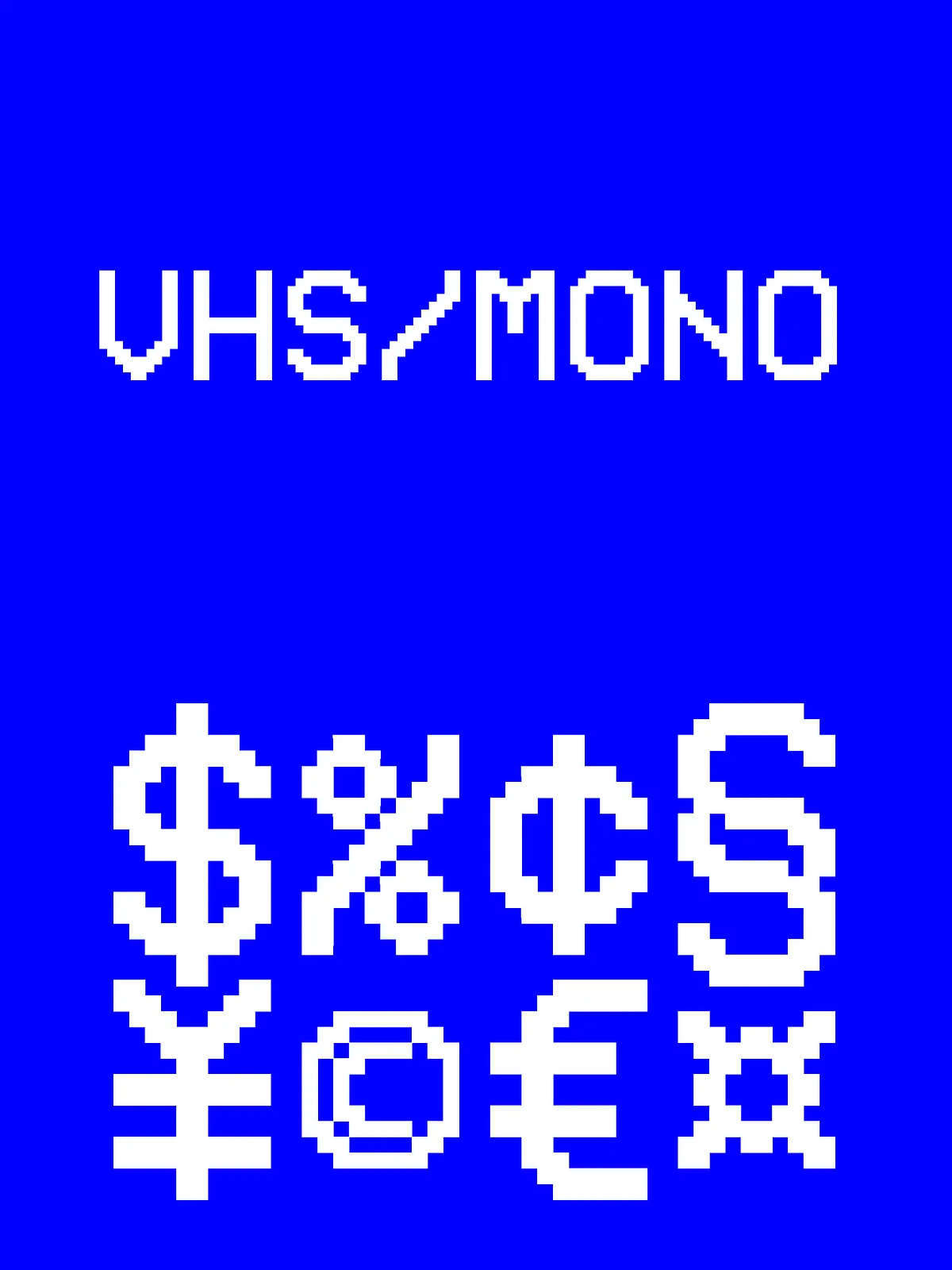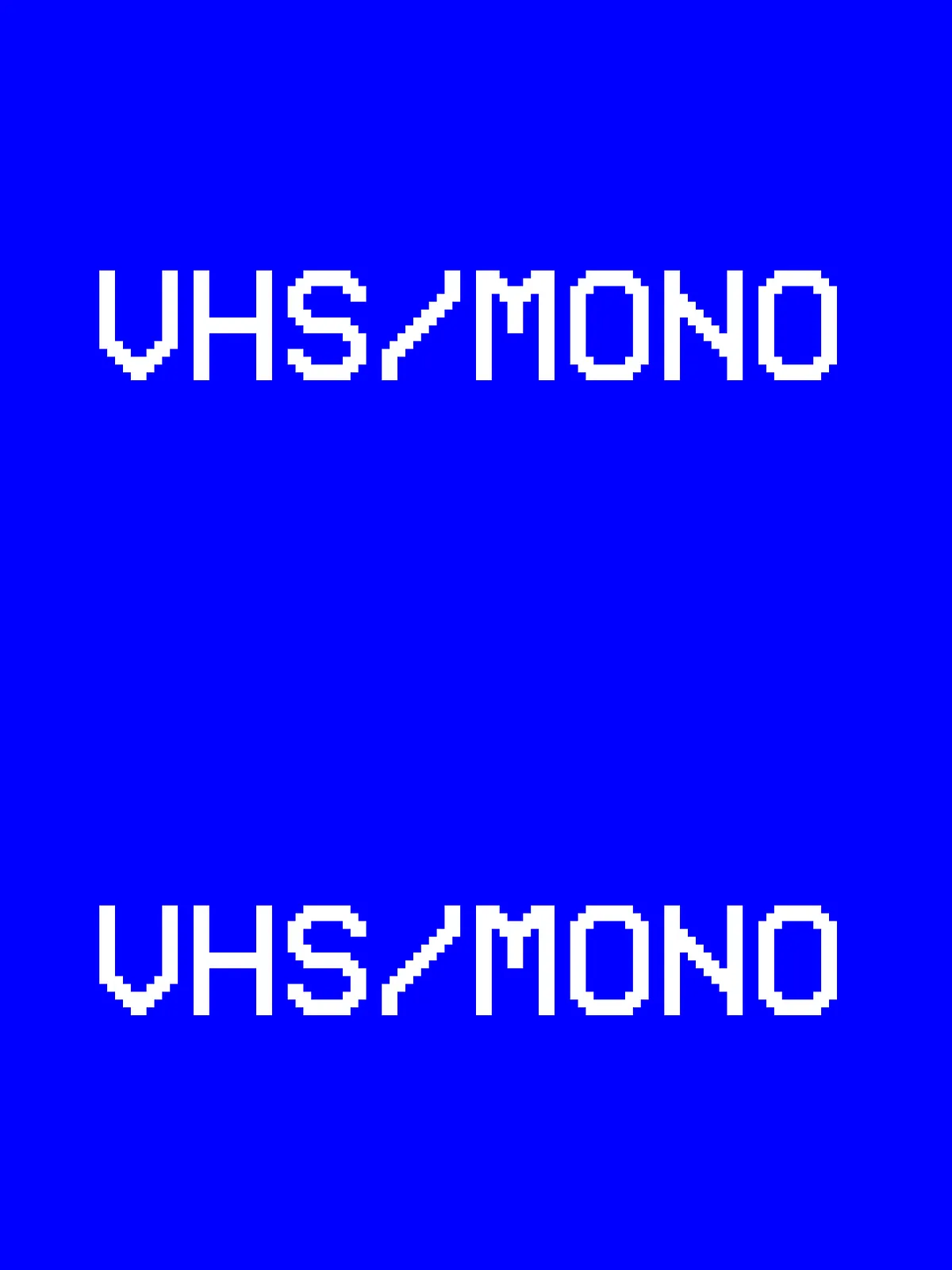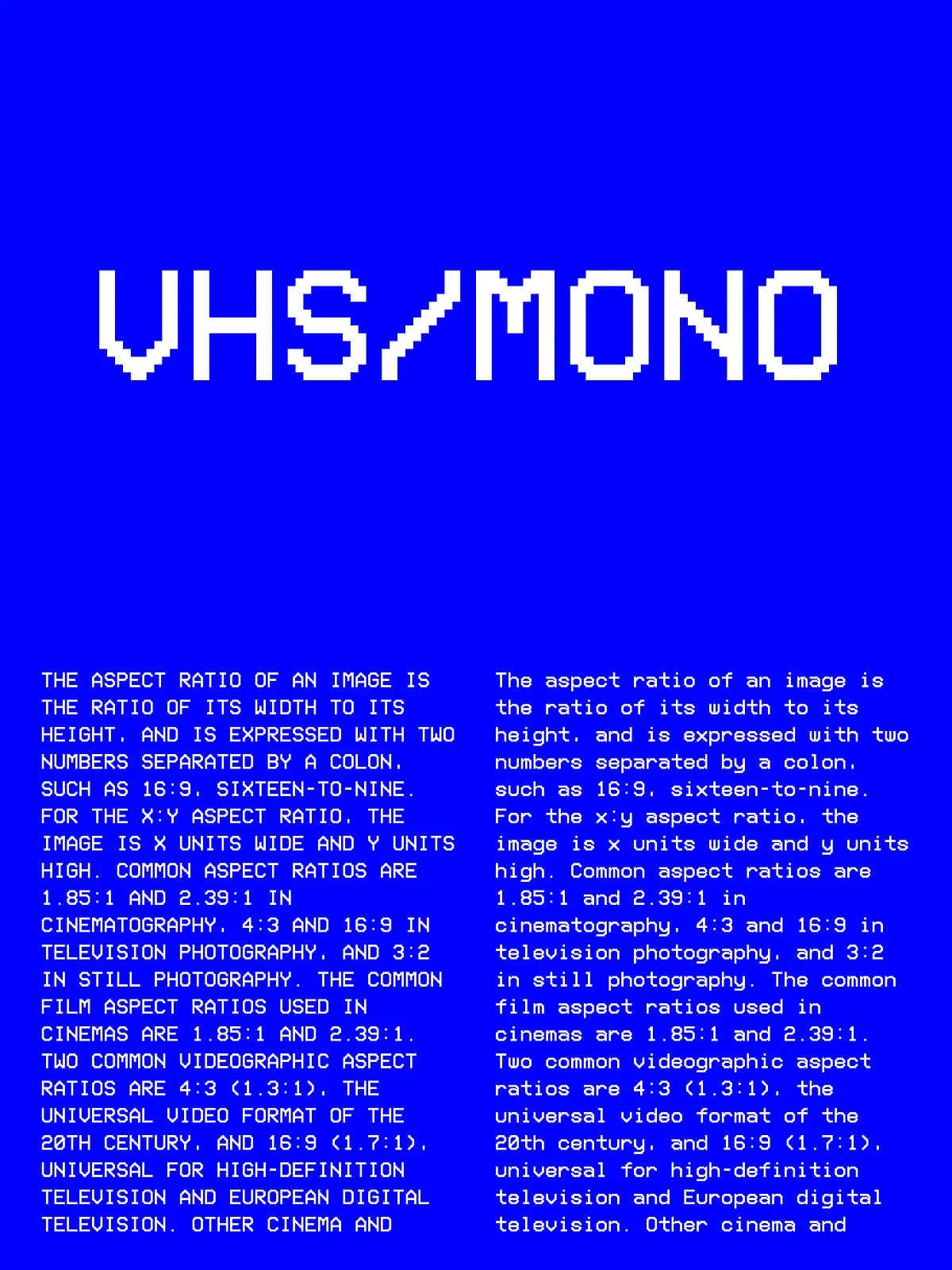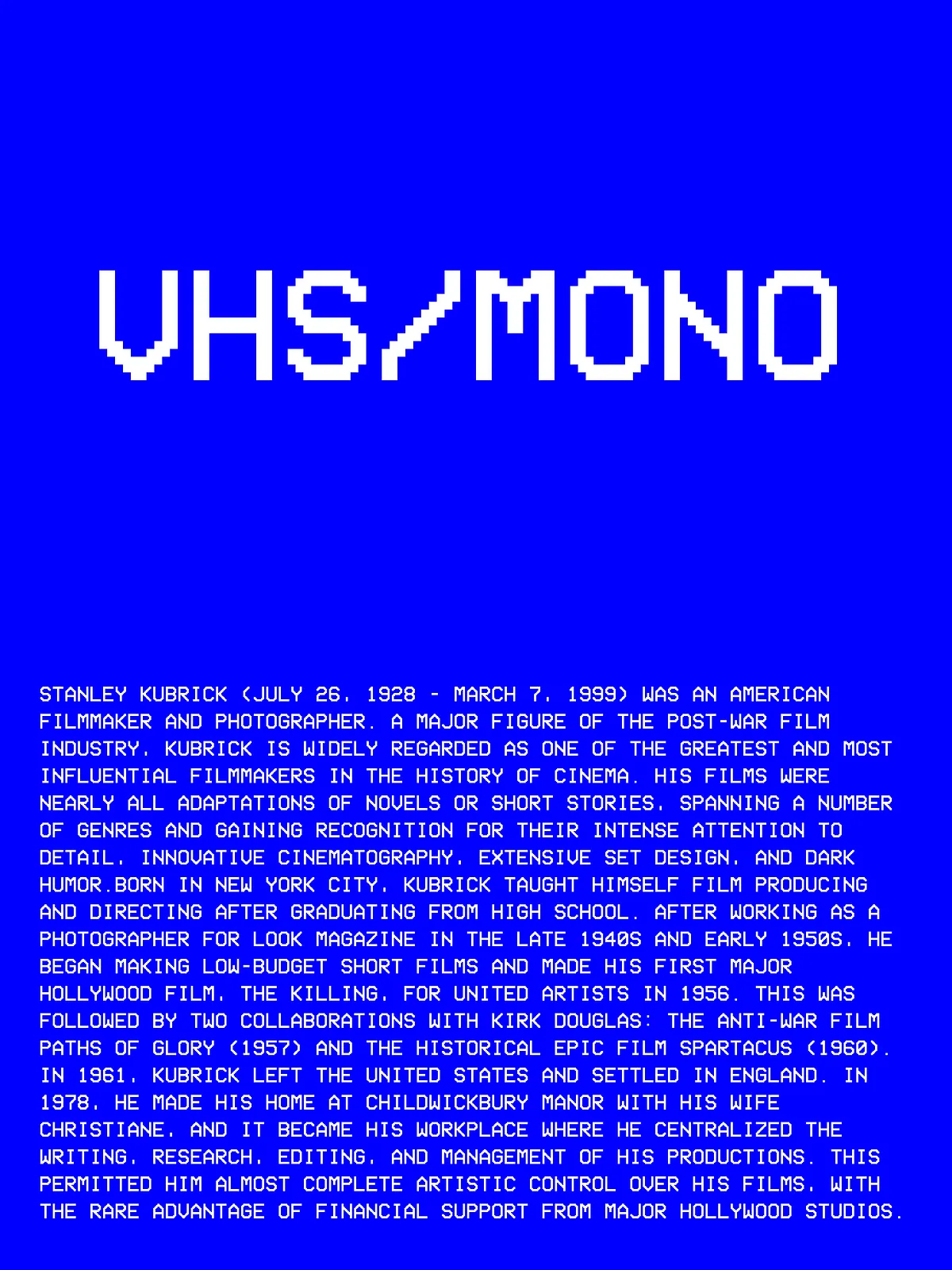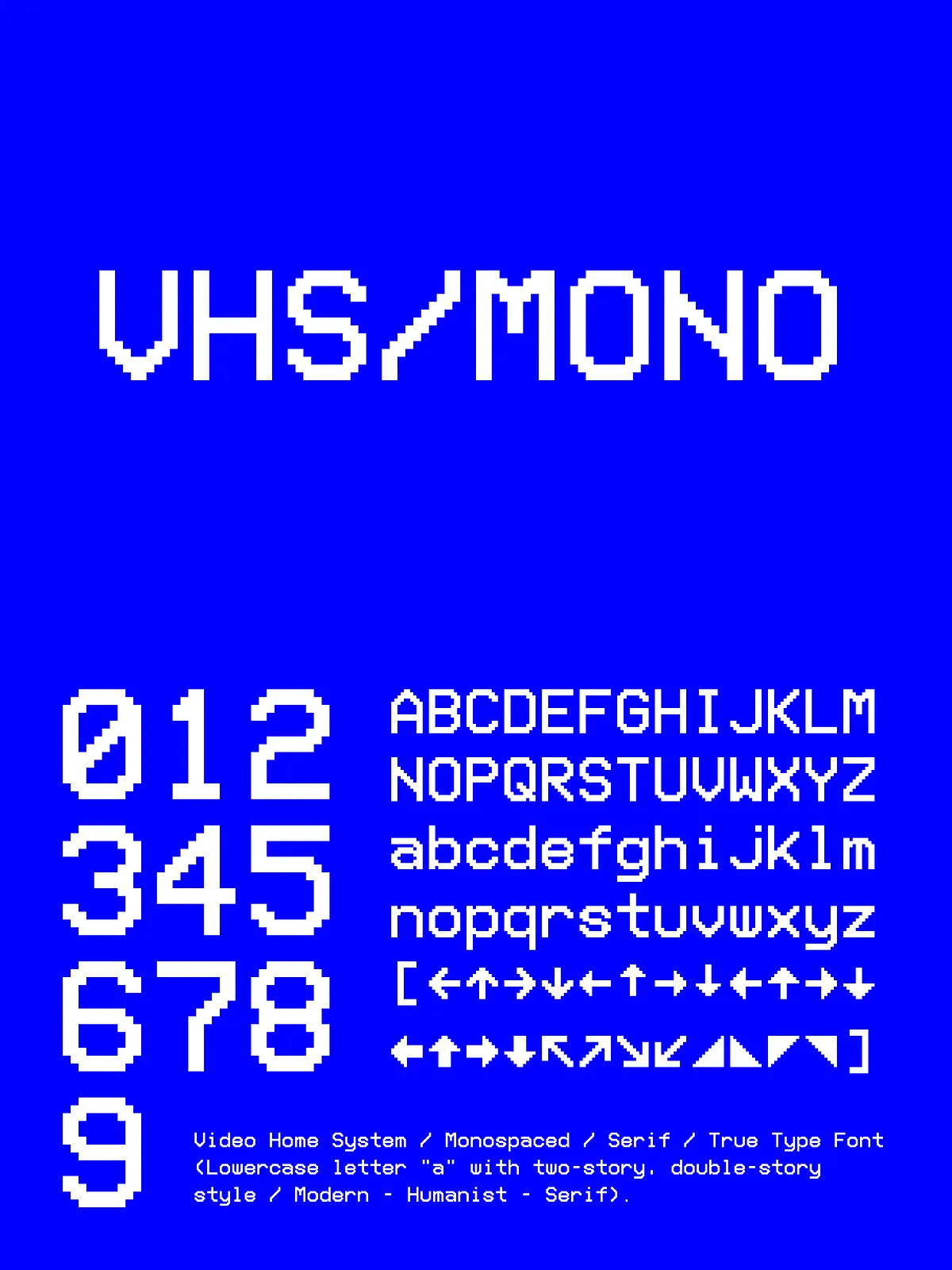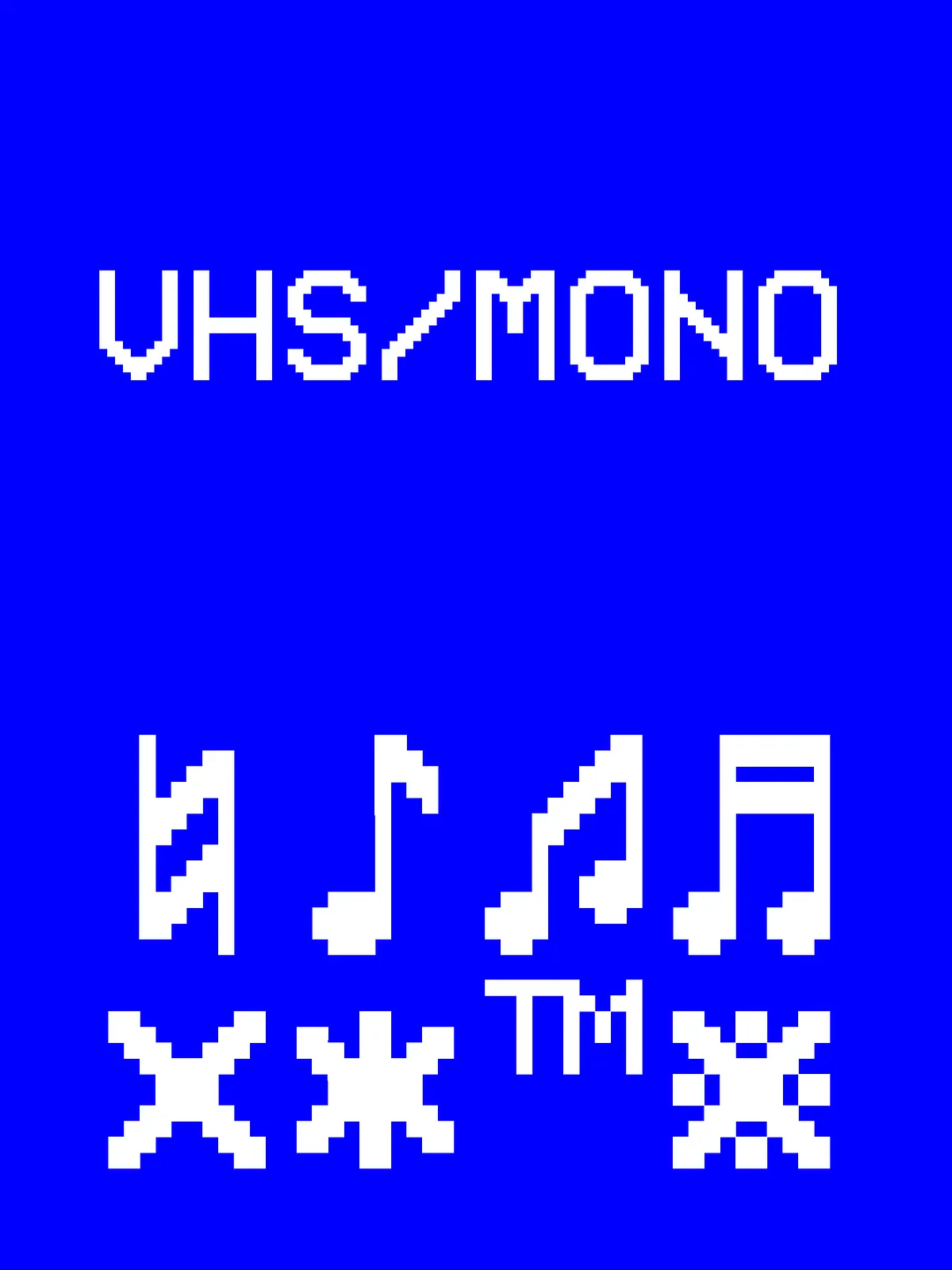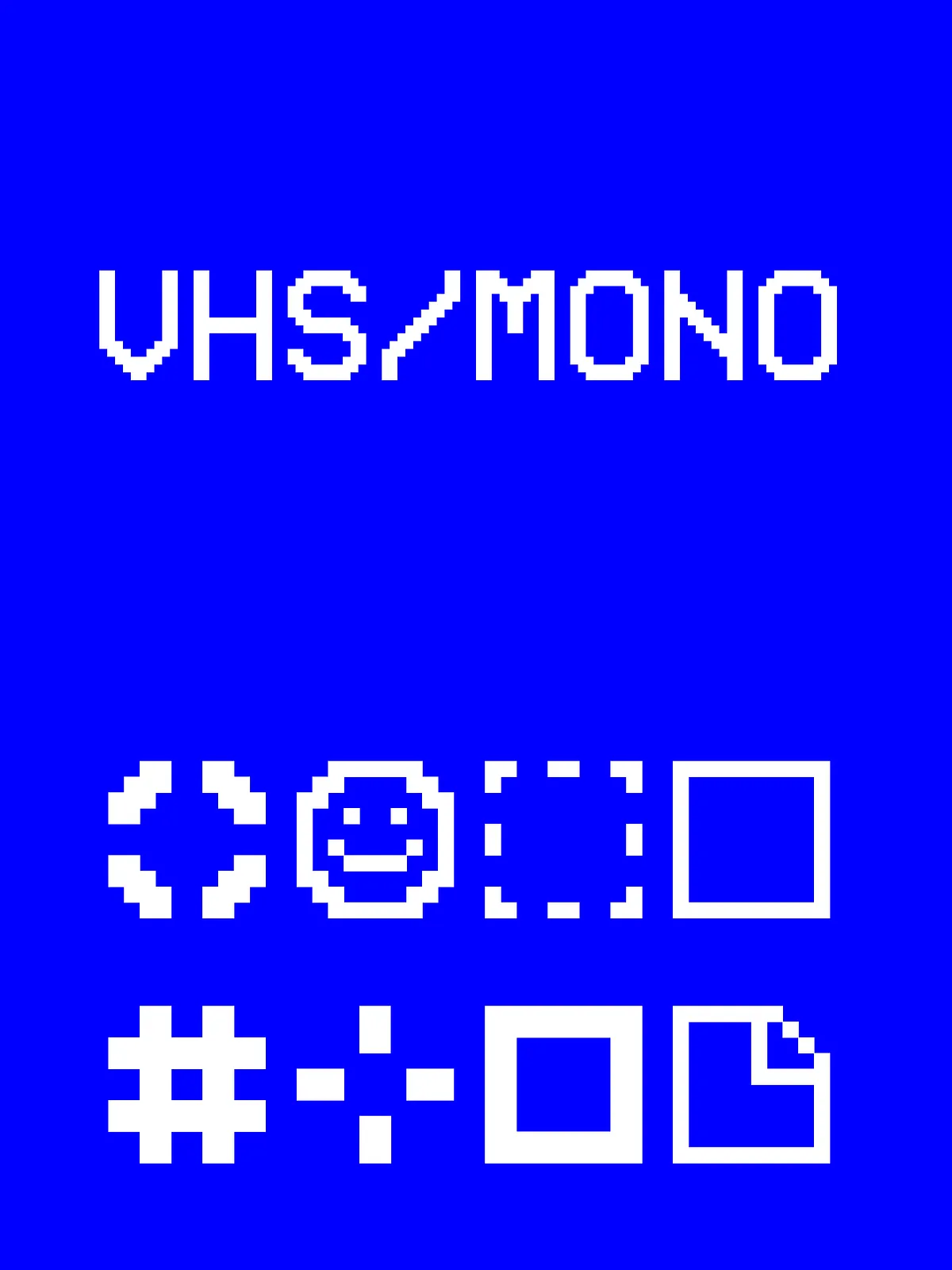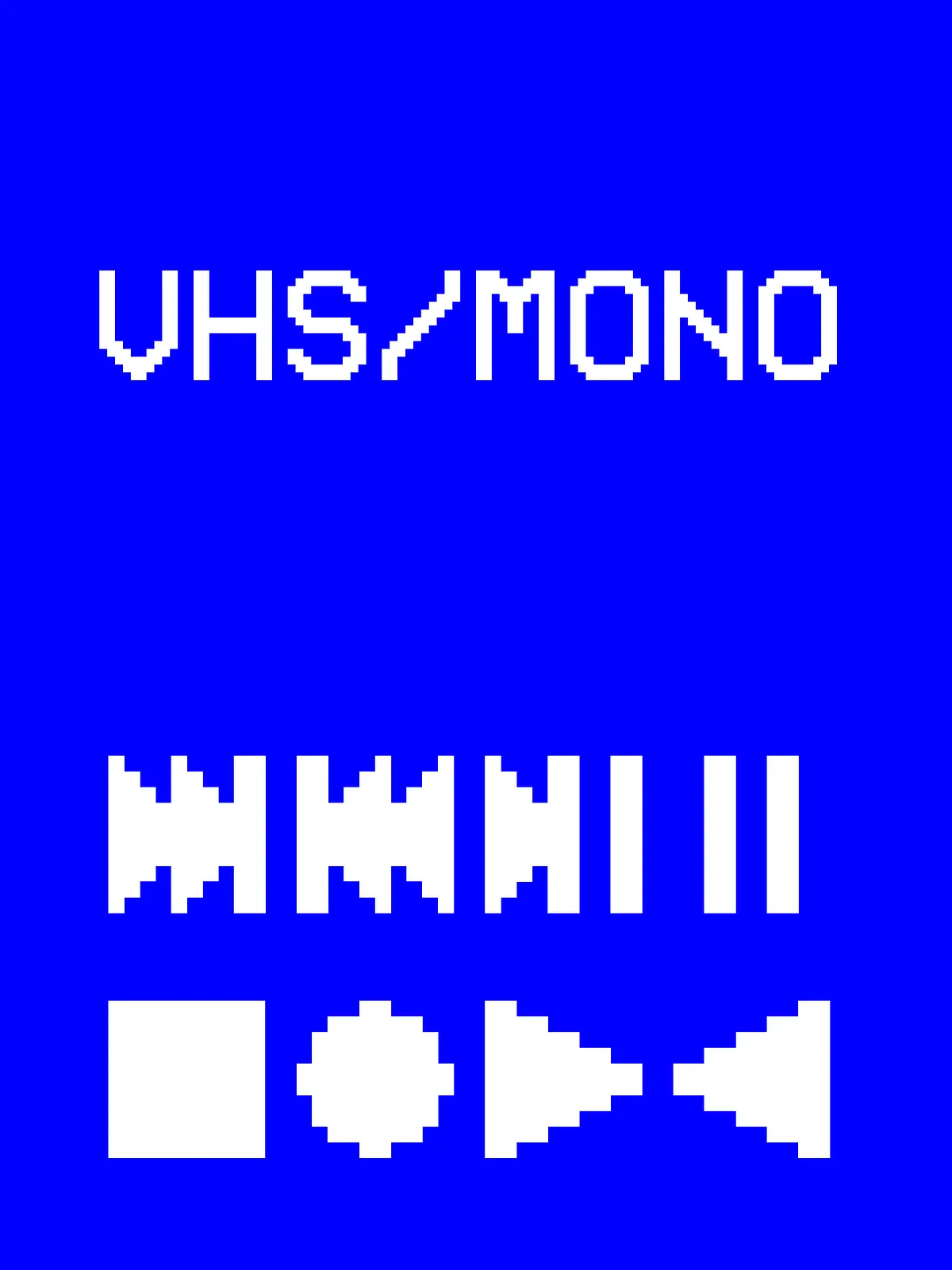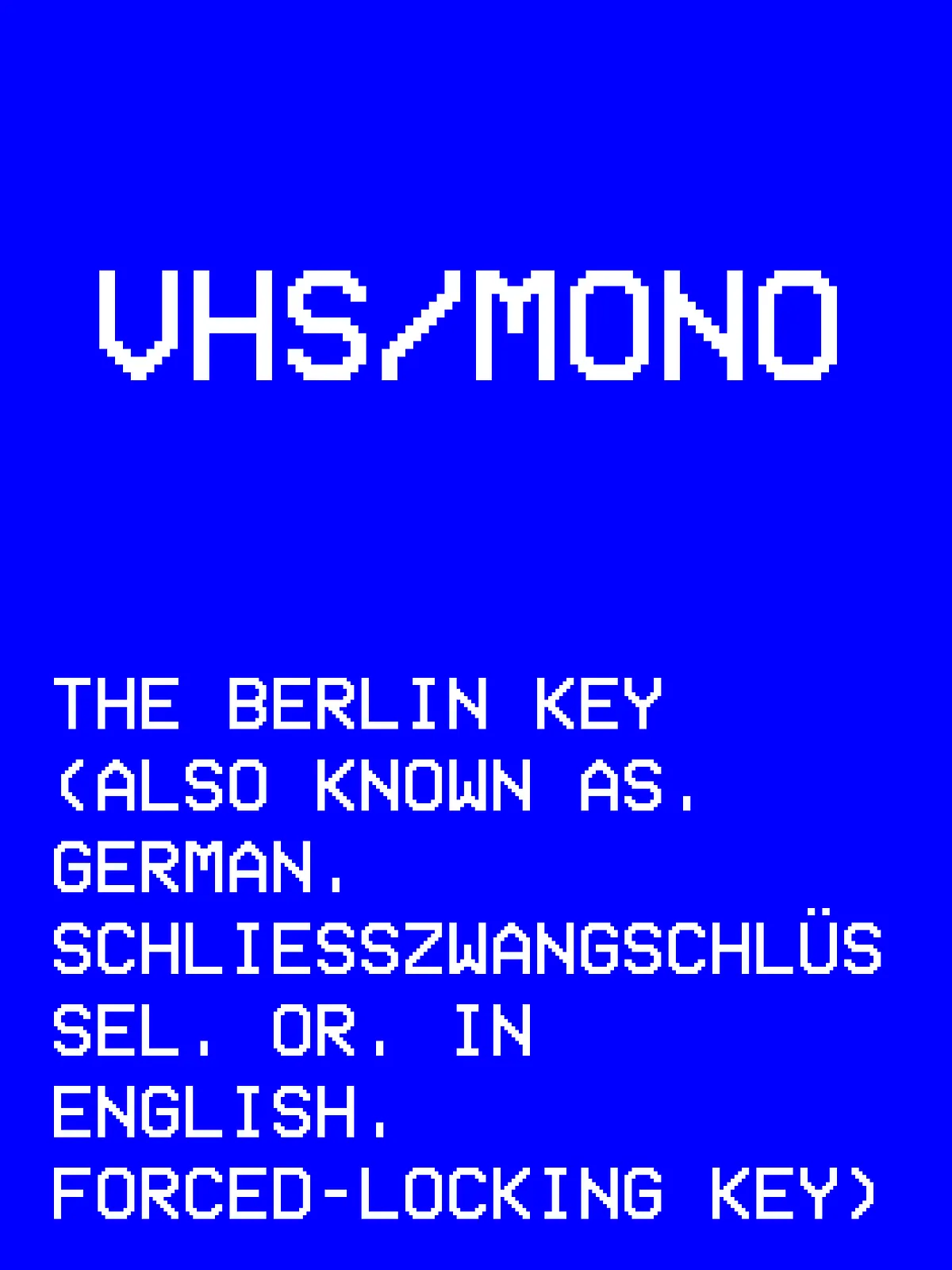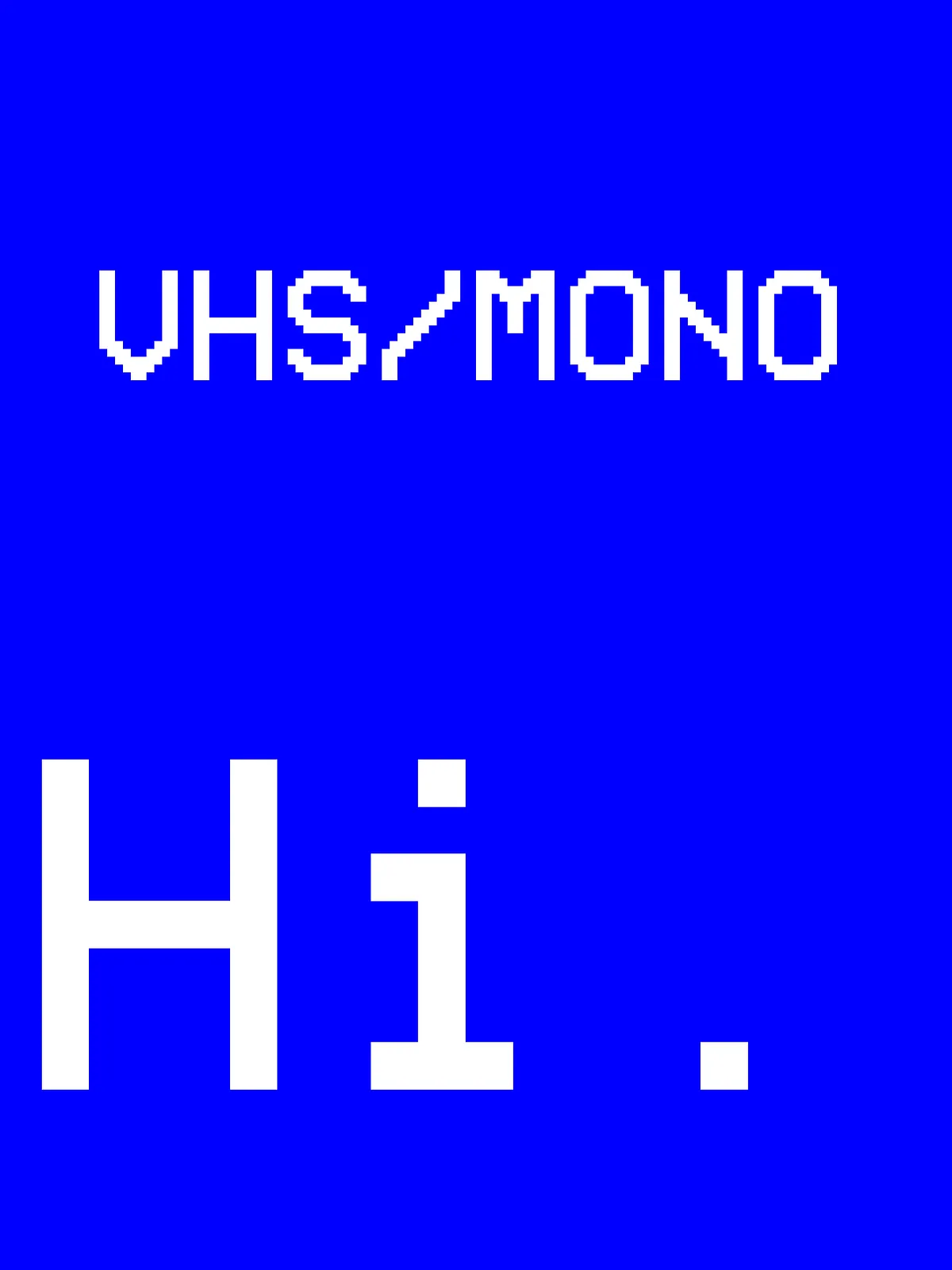
Recreate the raw authenticity of 1980s and 1990s home video aesthetics with VHS Mono—a meticulously crafted pixel perfect bitmap font series built for design with soul and precision. Engineered with nostalgia in mind but built for today’s workflows, this font family blends the charm of vintage video systems with the crisp clarity demanded by modern digital displays.
Explore the Full VHS Mono Family: 6 Distinct Variants
1. VHS Mono — Modern Humanist Sans (Lowercase ‘a’: Two-Story)
The foundational style of the series, VHS Mono features clean, humanist sans-serif forms with a two-story lowercase ‘a’ and a balanced, slightly expanded counter space. Every character is rendered at exactly 26px with integer-based leading for perfect pixel alignment. Designed for readability and retro flair, this variant shines in UI elements, terminal interfaces, and retro game titles.
2. VHS Mono Serif — Modern Humanist Serif (Lowercase ‘a’: Two-Story)
For projects that need a bit more character and gravitas, VHS Mono Serif brings subtle serif details to the pixel canvas. The gentle stroke terminals and restrained serif flourishes add elegance without sacrificing the vintage aesthetic. Perfect for retro branding, film titles, or vintage-style documentation.
3. VHS Mono 2 — Geometric Sans (Lowercase ‘a’: One-Story)
Take a more abstract, futuristic turn with VHS Mono 2. Featuring a one-story lowercase ‘a’ and circular counter spaces, this geometric variant leans into minimalism and abstraction. With cleaner, angular shapes and a synthetic feel, it’s ideal for sci-fi themes, abstract animations, and digital art with a cybernetic edge.
4. VHS Mono 2 Serif — Geometric Serif (Lowercase ‘a’: One-Story)
When geometric form meets traditional refinement, VHS Mono 2 Serif emerges as a bridge between digital abstraction and typographic tradition. Circular counters, clean serifs, and consistent stroke weights create a visually harmonious font that retains its retro identity while feeling more sophisticated. Use it in retro-futuristic posters, game HUDs, or themed presentations.
5. VHS Mono Caps — All Caps, Monospaced
For maximum impact and uniformity, VHS Mono Caps delivers all uppercase letters with perfect pixel alignment. Ideal for headlines, navigation bars, code comments, and stylized slogans where visual dominance matters. Its strict monospaced design ensures alignment across multi-line text with zero visual wobble.
6. VHS Mono Serif Caps — All Caps, Serif
Bring the same retro grandeur to uppercase text with VHS Mono Serif Caps. The combination of serif details and monospaced precision creates a bold, authoritative presence. Use it sparingly for maximum effect—perfect for vintage-inspired posters, game intro screens, or iconic product names.
Technical Precision for Pixel Perfection
Every font in the VHS Mono series is created with care and consistency:
- Fixed Size: 26px — Ensures consistent scaling and pixel accuracy across platforms.
- Integer-Based Leading — Prevents blurry rendering and maintains perfect line alignment.
- Disabled Anti-Aliasing — Preserves the raw, blocky aesthetic of early digital displays.
Best Applications for VHS Mono
Unleash the full power of this retro-themed font in these dynamic use cases:
- Retro game UIs — Create authentic interfaces for indie or nostalgic game projects.
- Terminal and code editor themes — Add a vintage touch to code documentation or dev environments.
- Brand identities with a retro twist — Ideal for retro cafes, vintage tech startups, or themed entertainment events.
- Music video intros and title sequences — Bring VHS nostalgia to digital media.
- Graphic design and motion graphics — Use in animated text that mimics tape glitches, tracking lines, or analog flicker.
Why Choose VHS Mono?
Unlike generic “80s-style” fonts that overuse grain, noise, and distortion, VHS Mono focuses on clean pixel construction and consistent design language. It’s not a filter—it’s a typeface. Designed for creators who value authenticity, technical craftsmanship, and deliberate aesthetics.